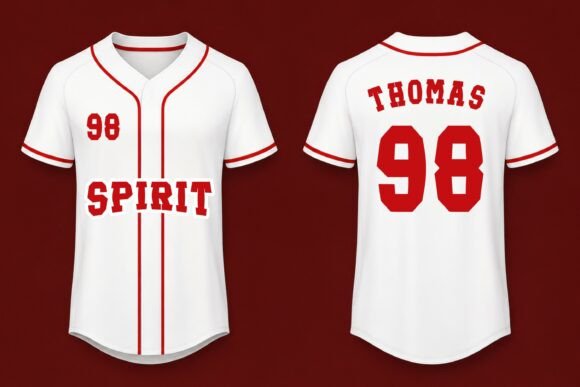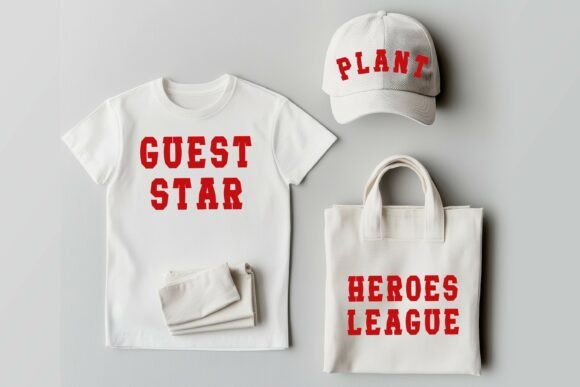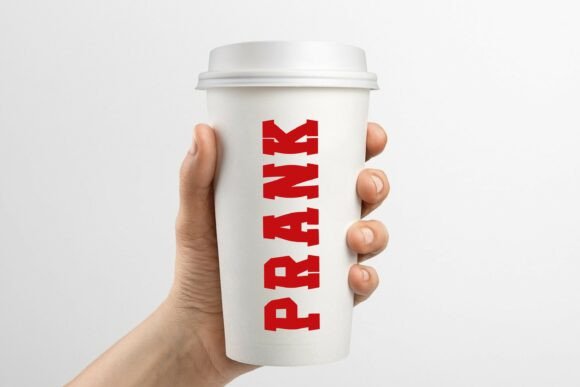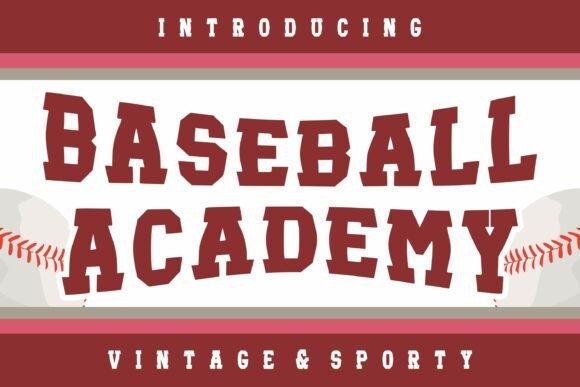
Introduction to Baseball Academy Font
Baseball Academy is a bold and powerful display font inspired by classic baseball typography and collegiate sports lettering.
With its strong slab-style shapes and athletic character, this font is perfect for creating eye-catching designs with a vintage sporty feel Ideal for logos, jerseys, posters, branding, merchandise, and sports-themed designs, Baseball Academy delivers a timeless American athletic aesthetic.